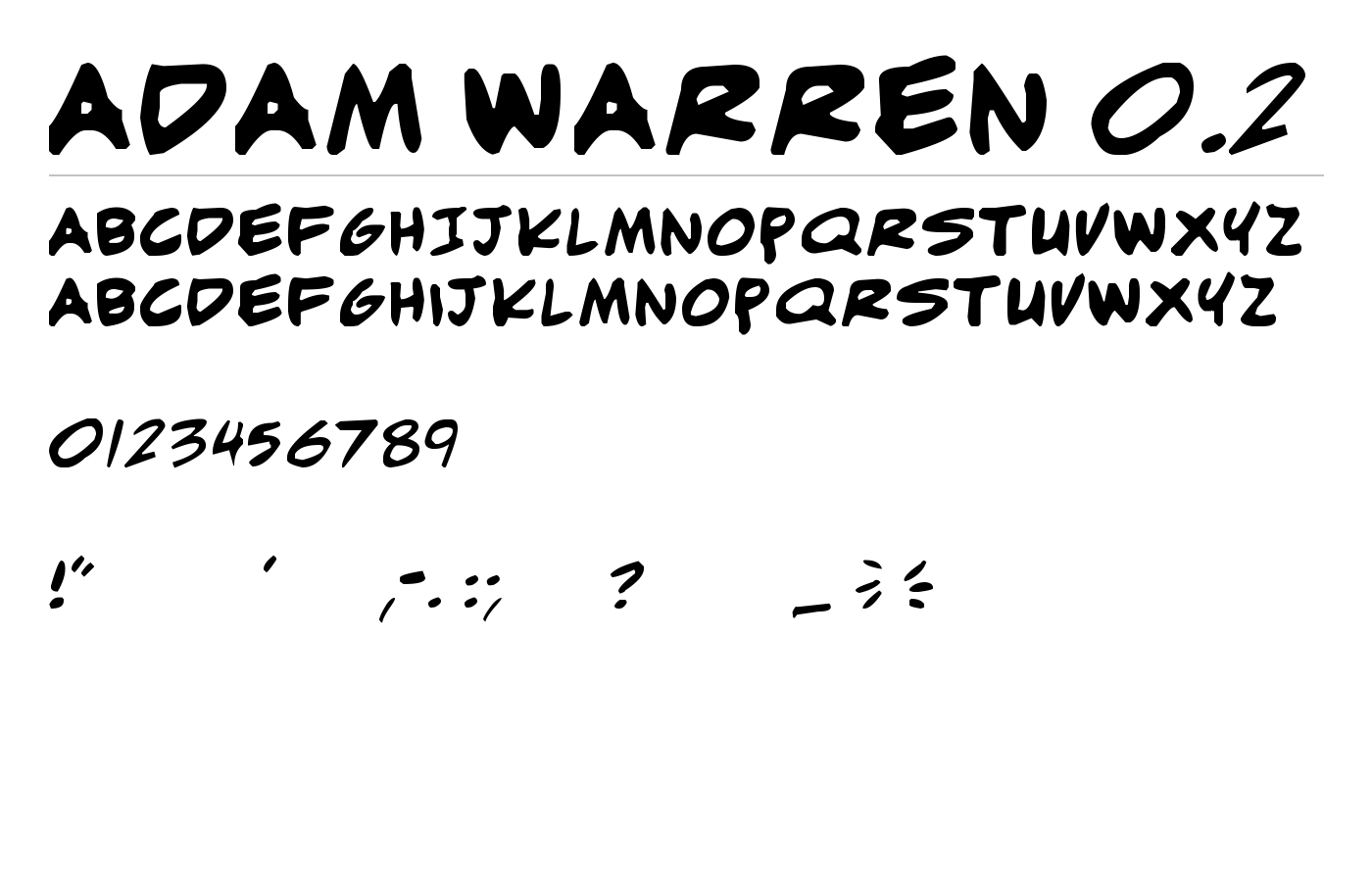
Adam Warren 0.2 is a bold, hand-drawn sans serif font with a playful and informal personality. Its uneven strokes and casual letterforms create a lively, approachable feel, making it ideal for creative projects, comic-style designs, and informal branding that aim to capture energy and spontaneity. This font works best in headlines, logos, and playful editorial layouts where a distinct, personal touch is desired.
adam warren 0.2 Font